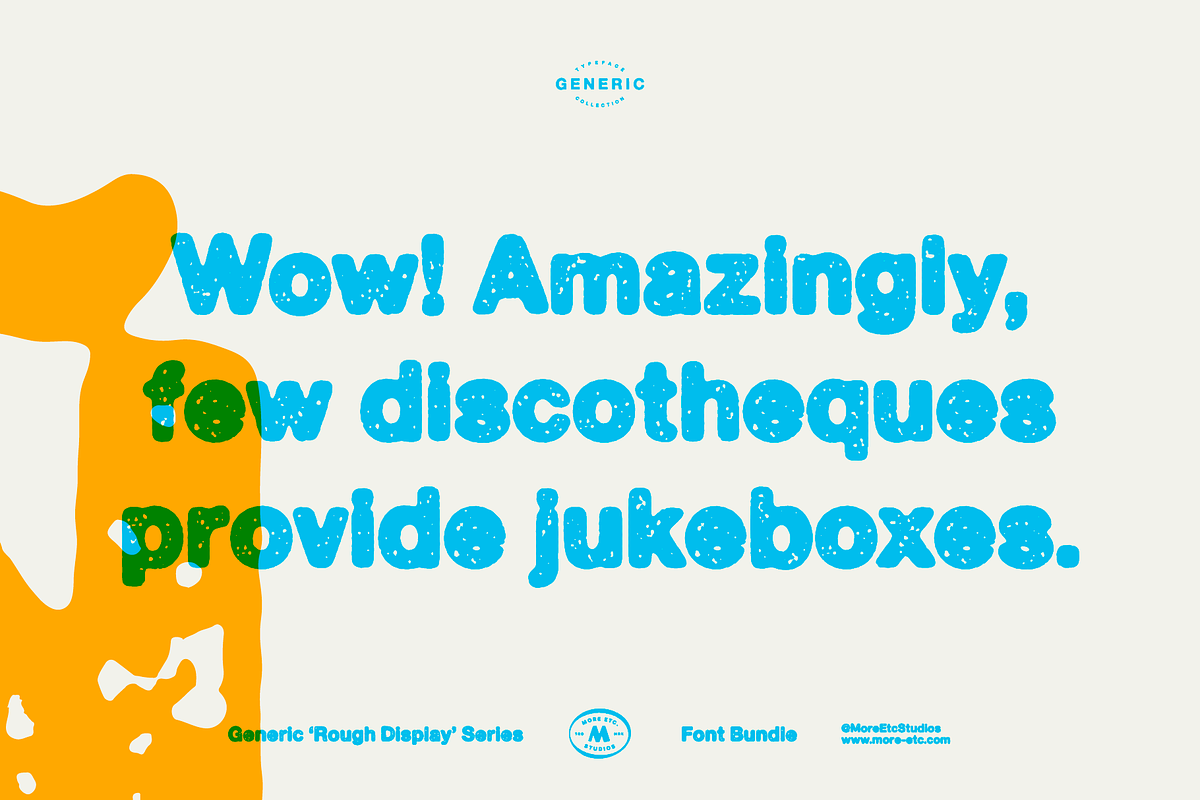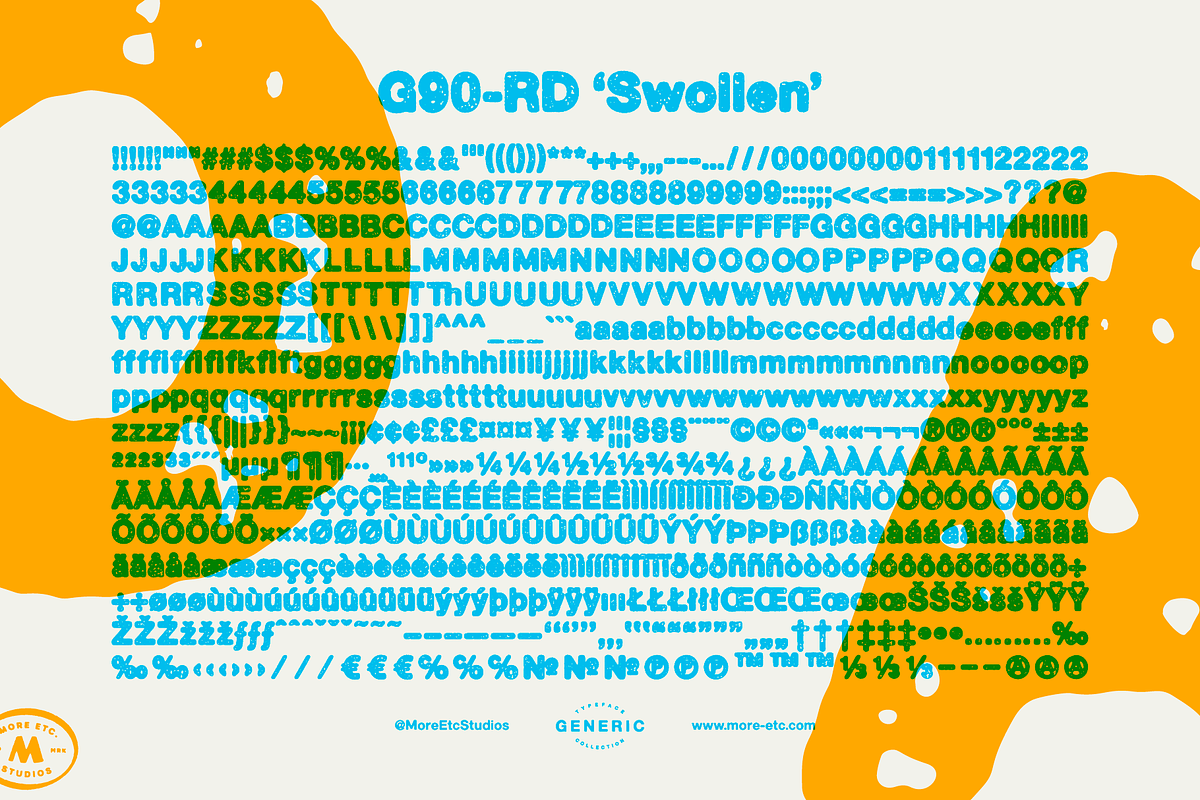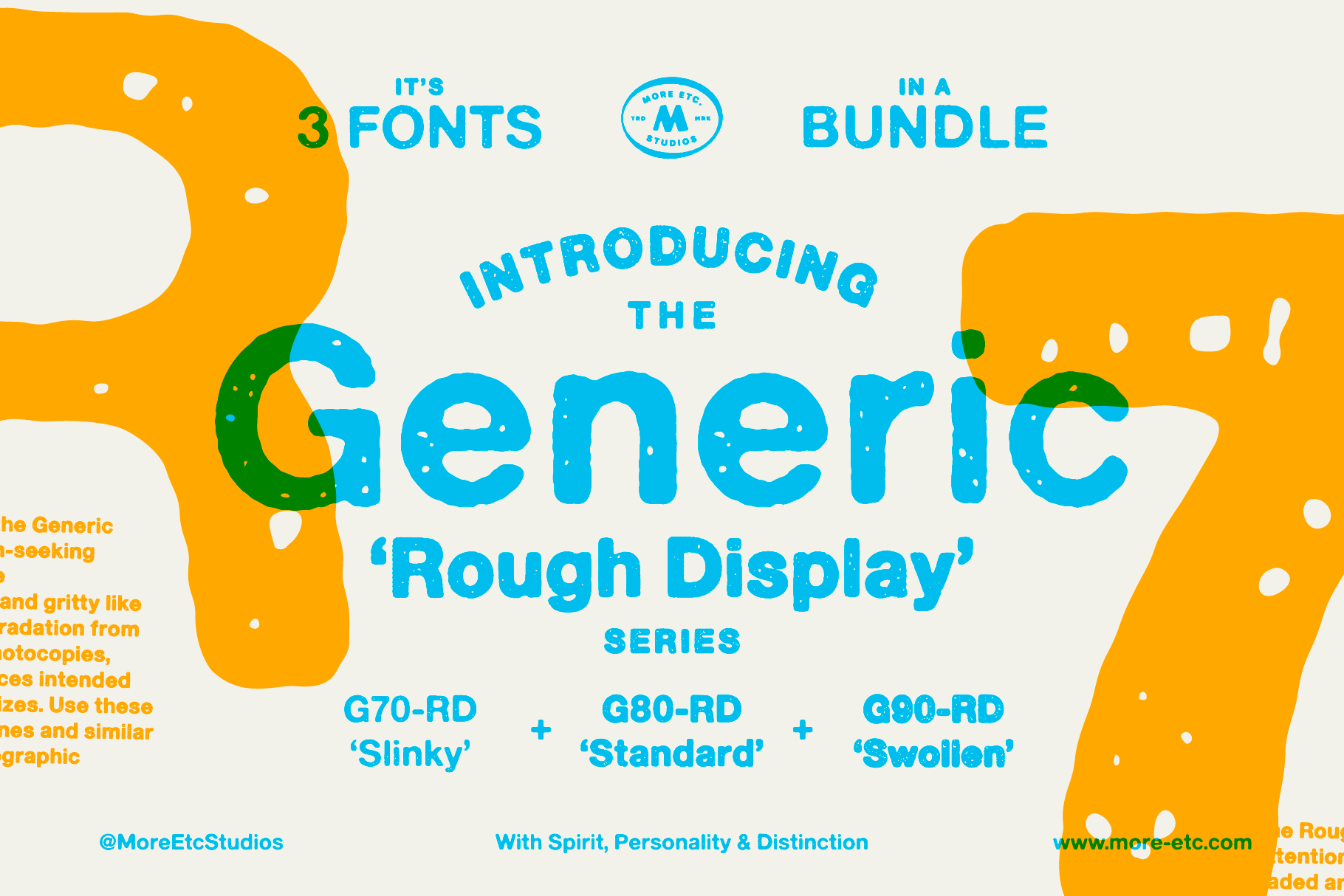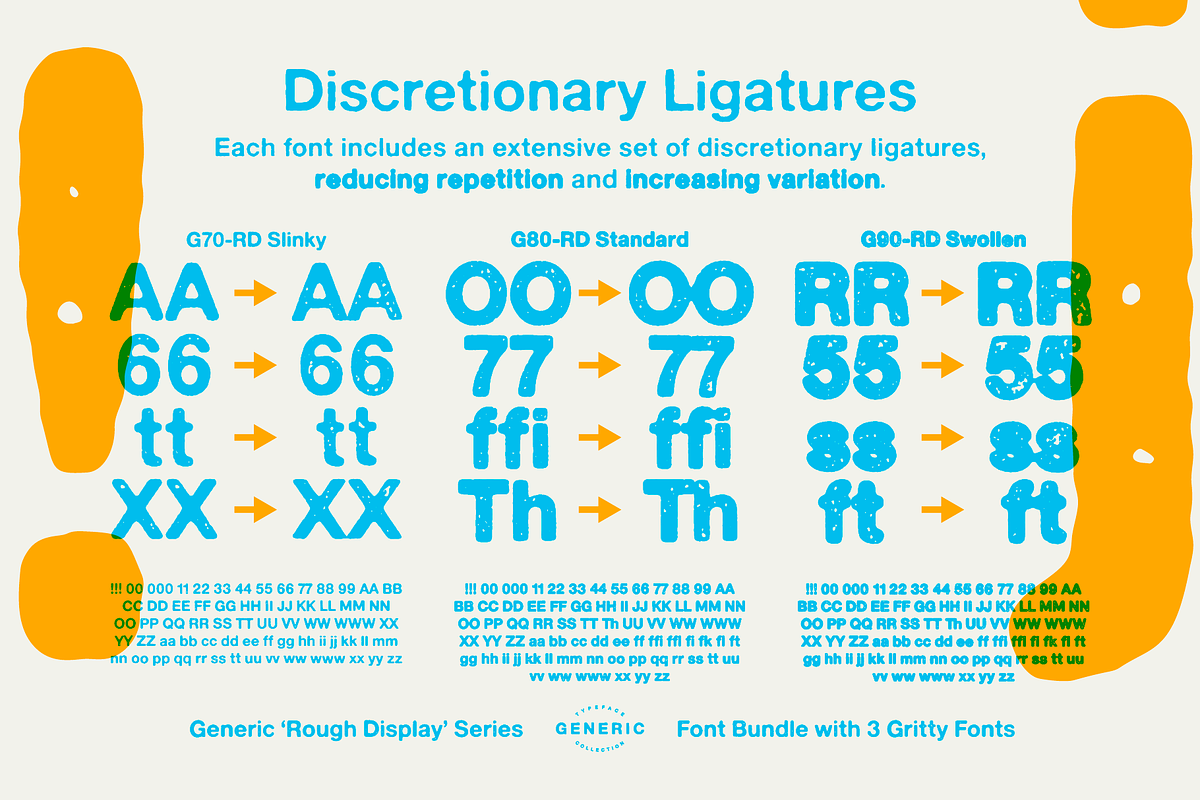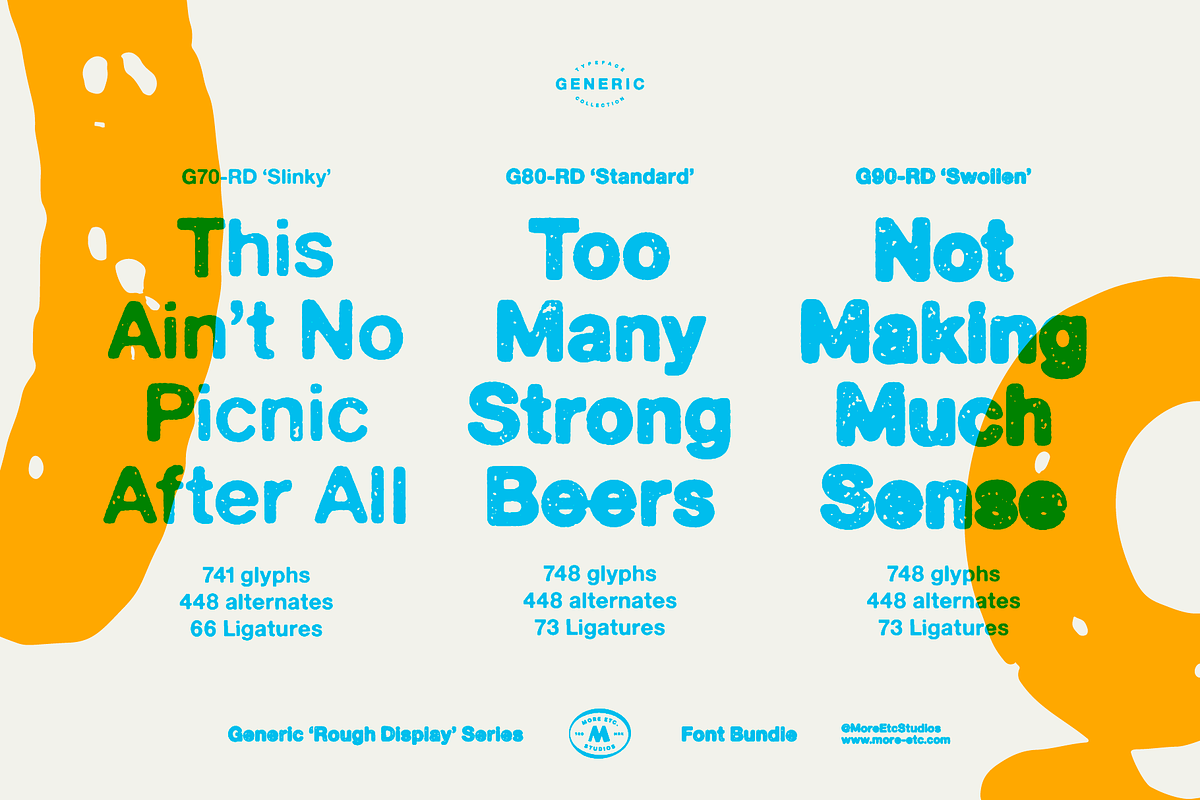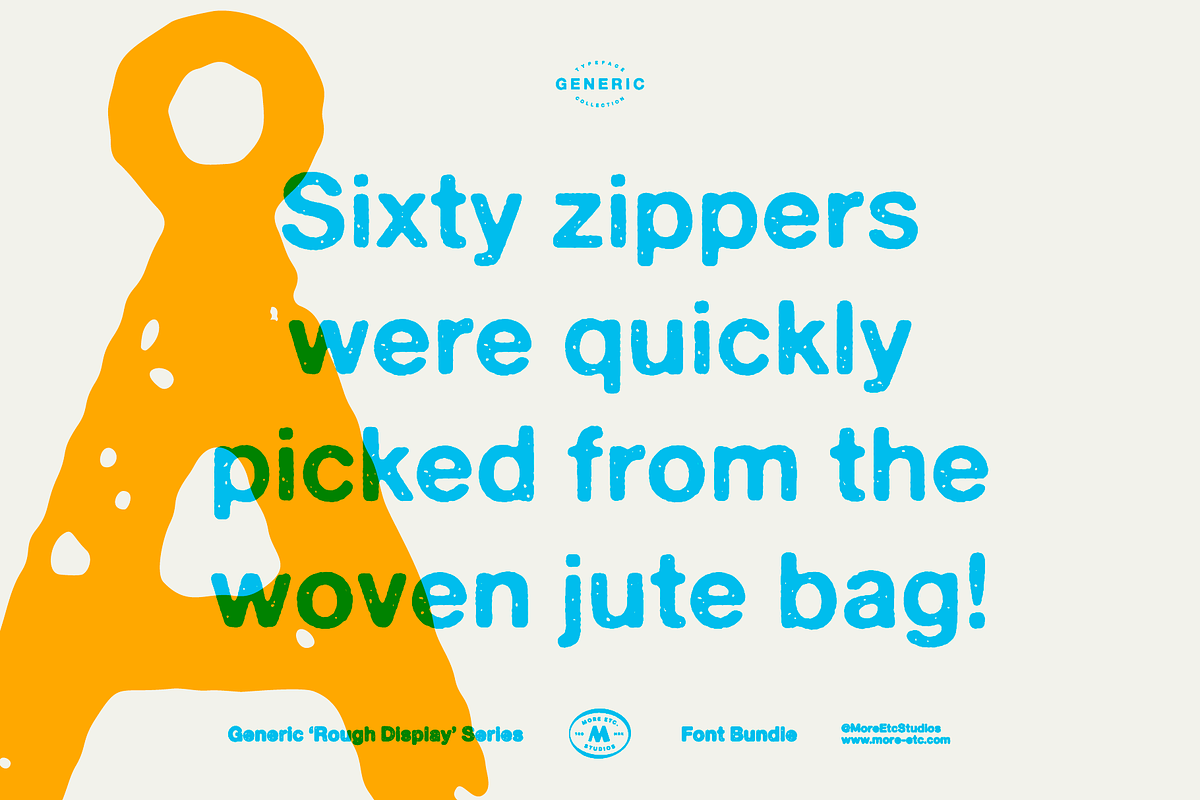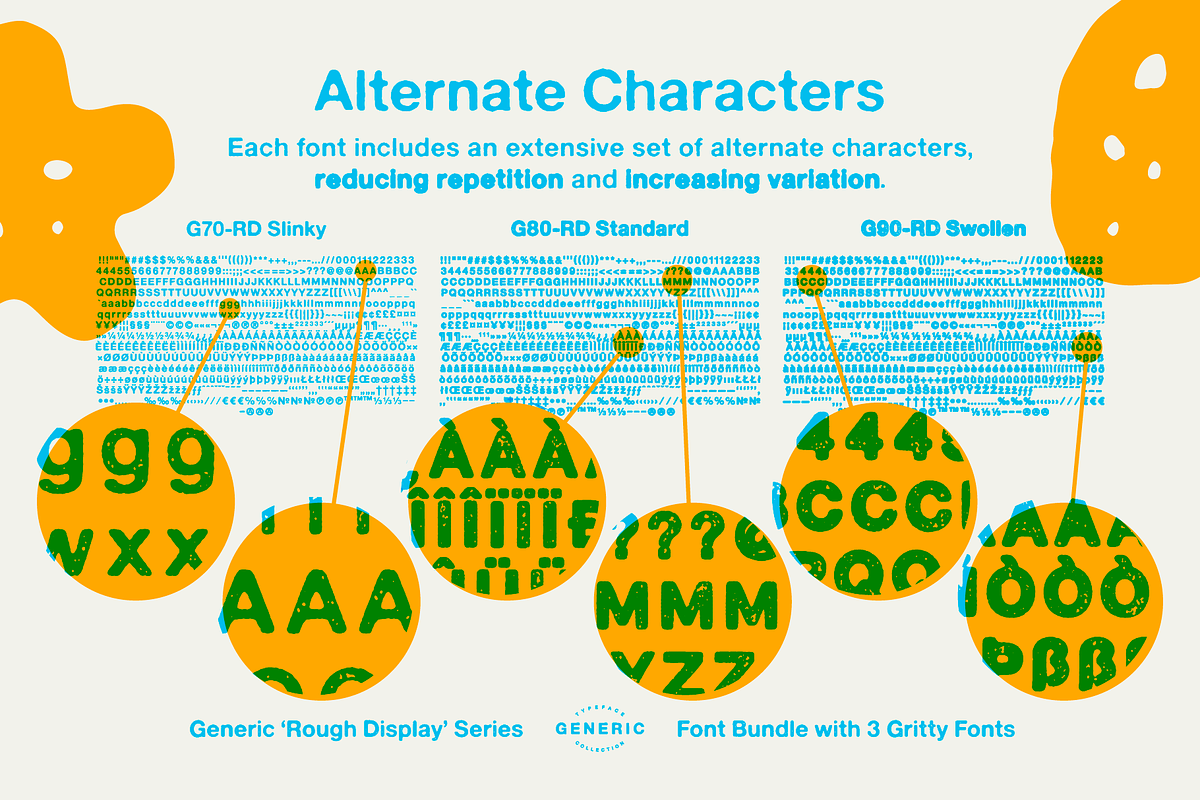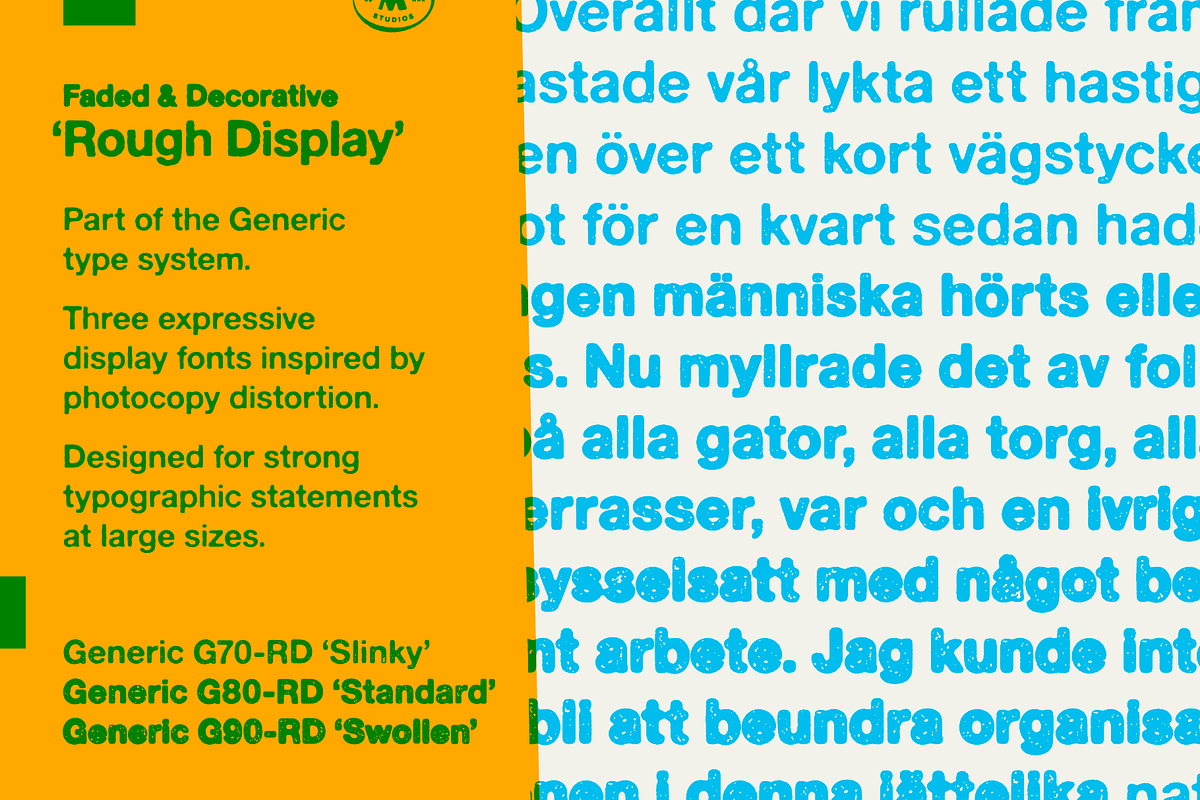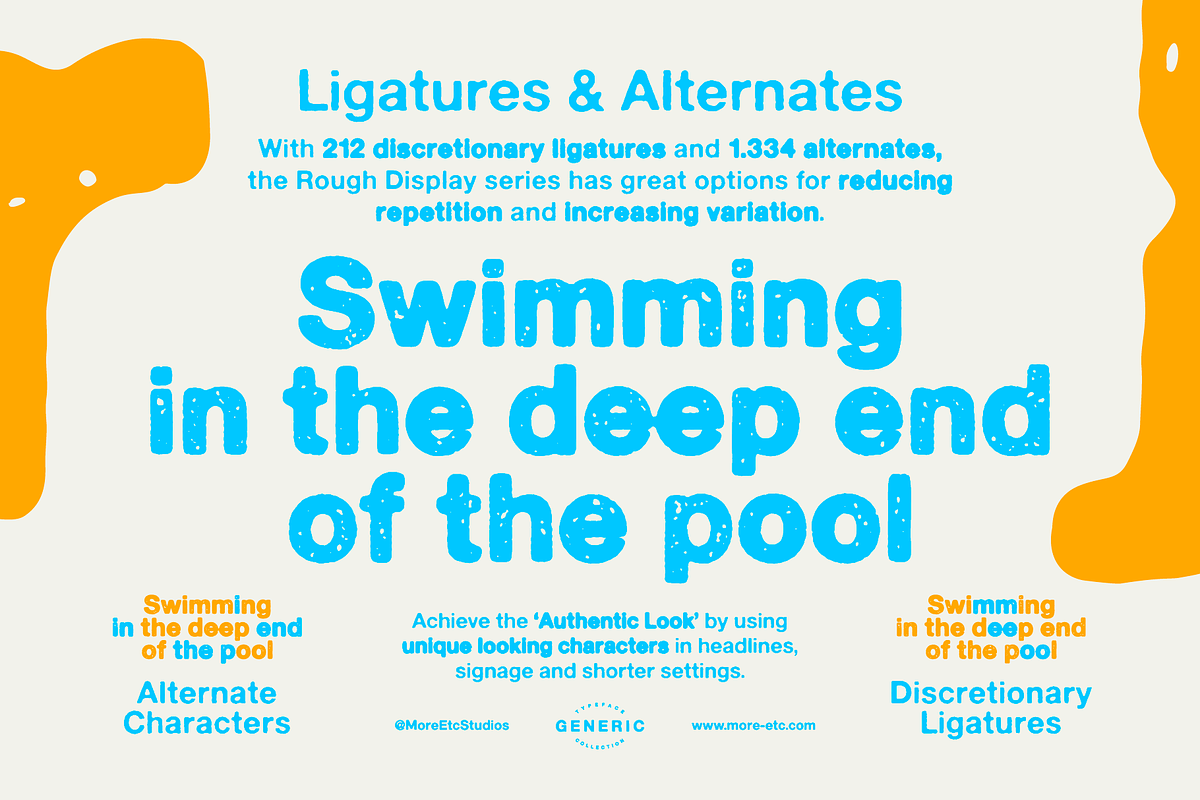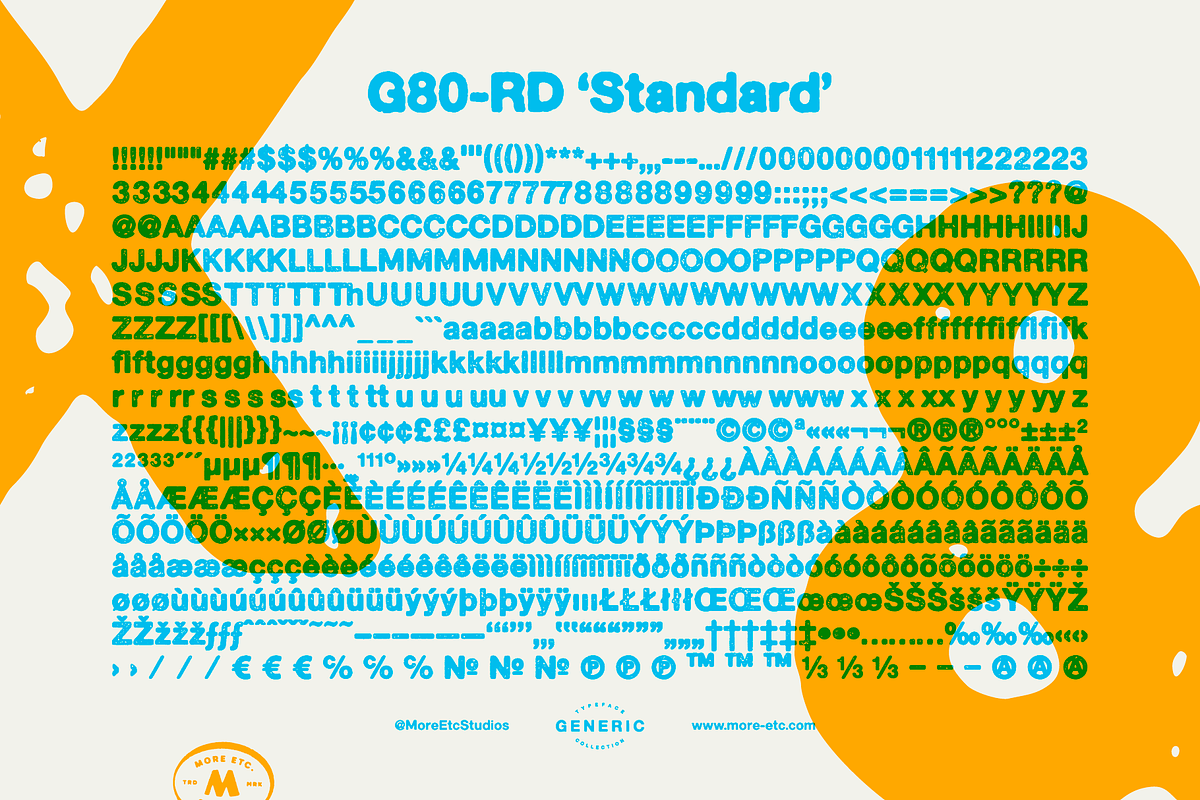
Generic – Rough Display (3 Fonts)
Faded & Decorative
Rough Display is part of the Generic type system – a collection of analogue-inspired sans-serif display fonts by More Etc. Studios.
This series features decorative, exposure-driven letterforms inspired by photocopy distortion and image degradation. Designed to stand out at larger sizes.
Three weights, from slightly underexposed to heavily overexposed.
G70-RD ‘Slinky’
G80-RD ‘Standard’
G90-RD ‘Swollen’
Across the series: 1,334 alternate characters and 212 discretionary ligatures (OpenType features).
Best suited for headlines, signage, posters and high-impact typography.